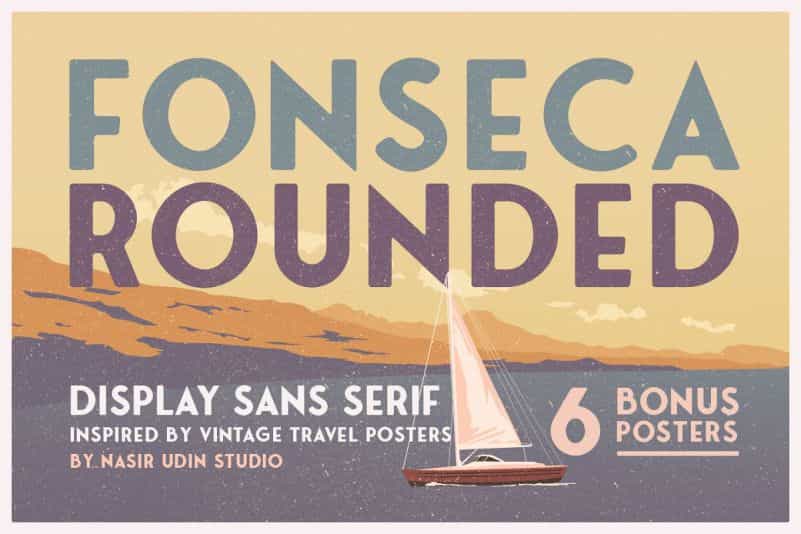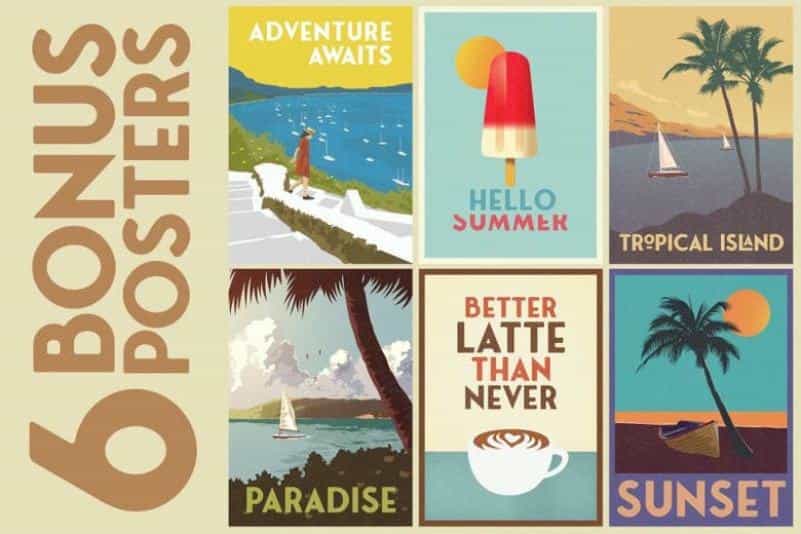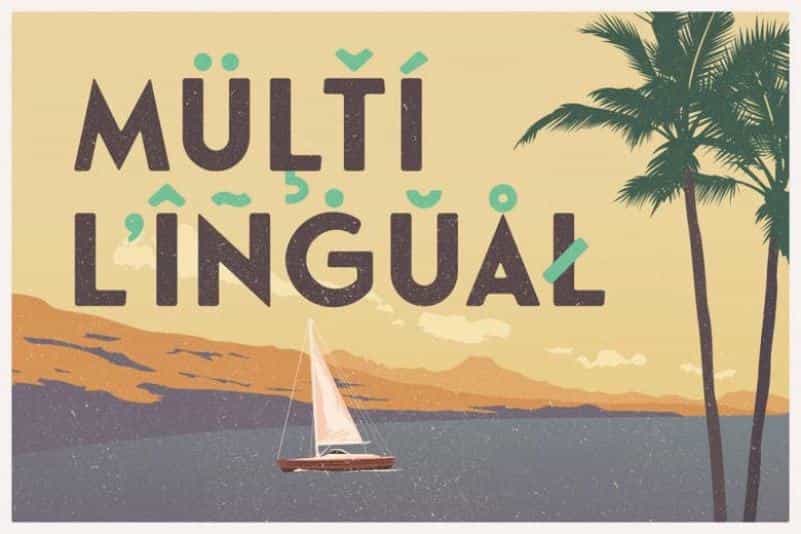
Introducing Fonseca Rounded Font. It is a product of Nasir Udin. The design of Fonseca Rounded was based on the Vintage Travel Posters, and it is a sans serif font with a modern look. Get the inspiration by its everlasting and traditional look.